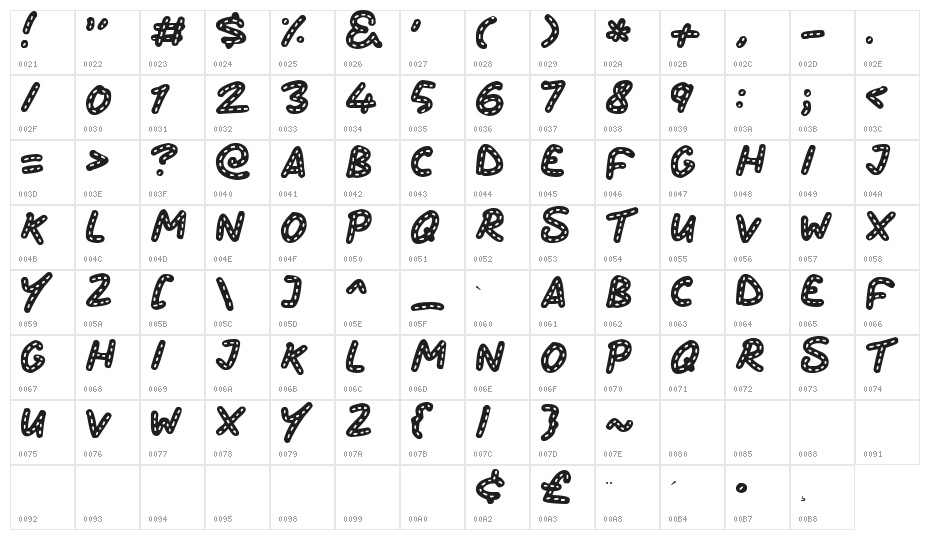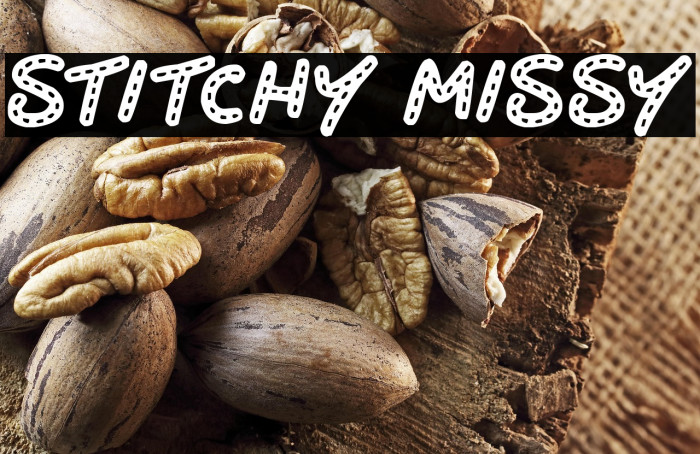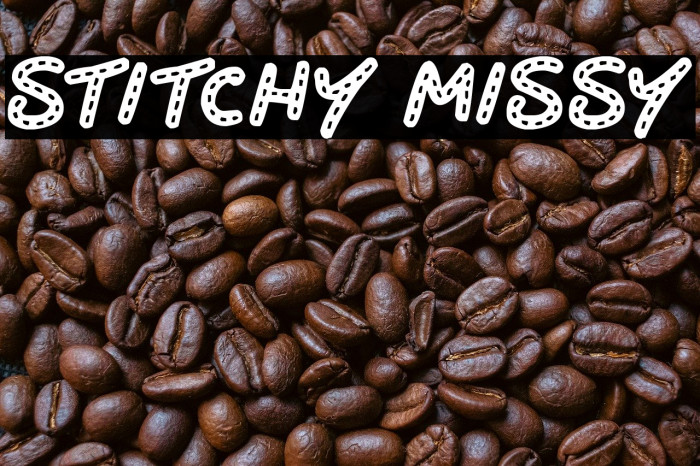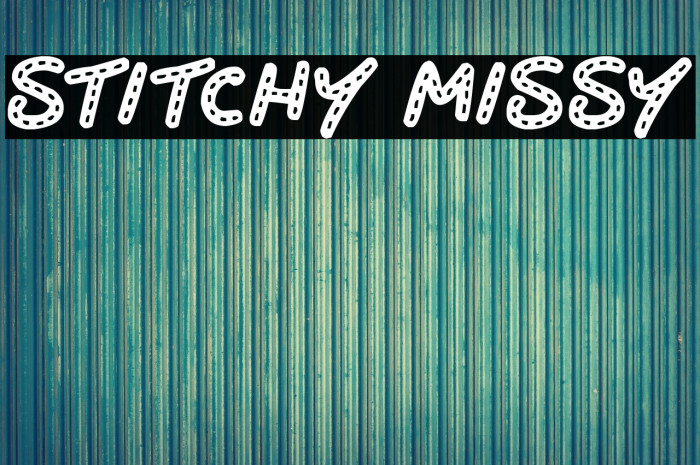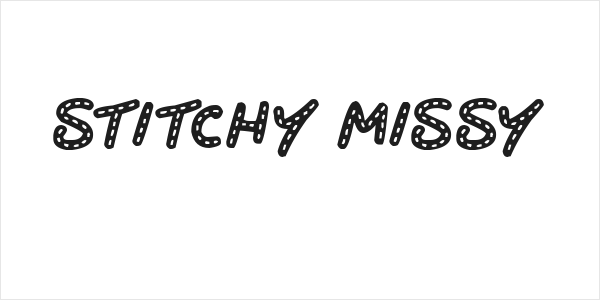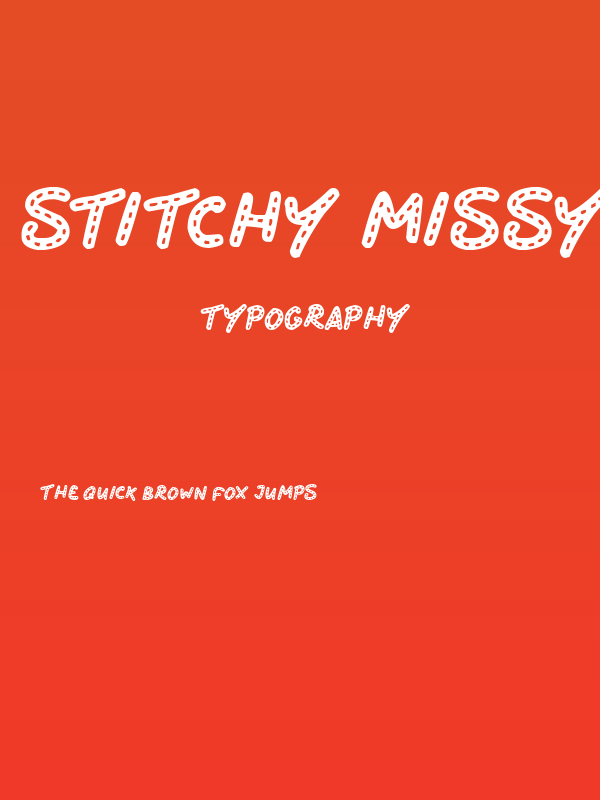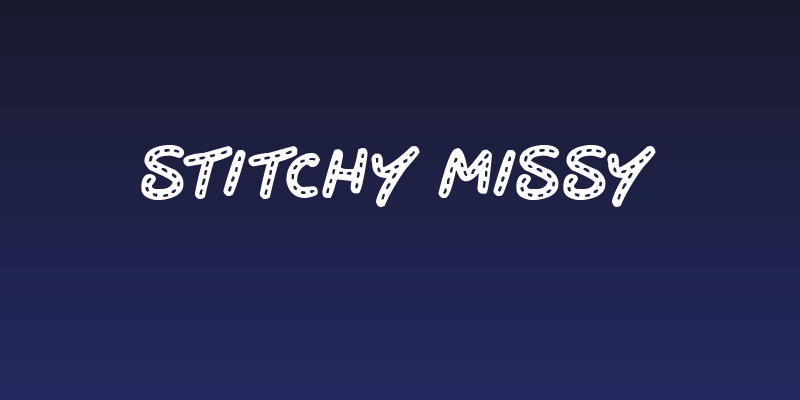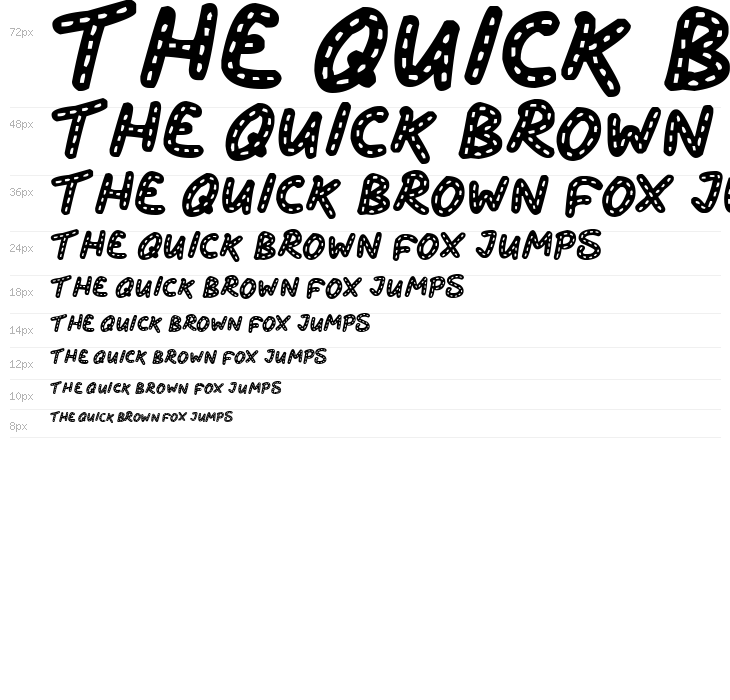
Stitchy Missy Font
Stitchy Missy Description
This playful and whimsical font features bold, rounded characters with a stitched pattern running through each letter, giving it a handcrafted and unique appearance. The letters are evenly spaced and maintain a consistent thickness, creating a cohesive look. The font includes both uppercase and lowercase letters, numbers, and a variety of special characters, making it versatile for different uses. Its decorative style is reminiscent of hand-sewn crafts, making it ideal for projects that require a personal touch or a crafty aesthetic.
| Proposed Projects | Perfect for children's book covers, craft project labels, DIY-themed websites, and playful branding materials. |